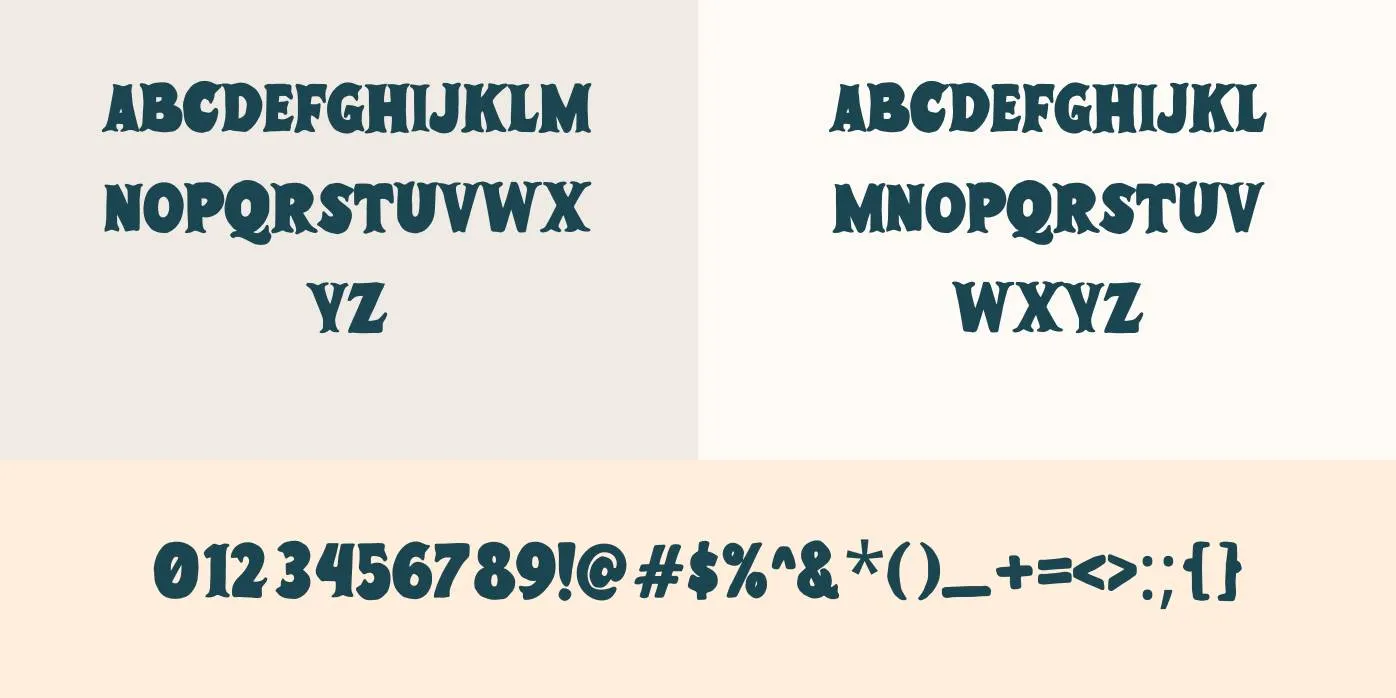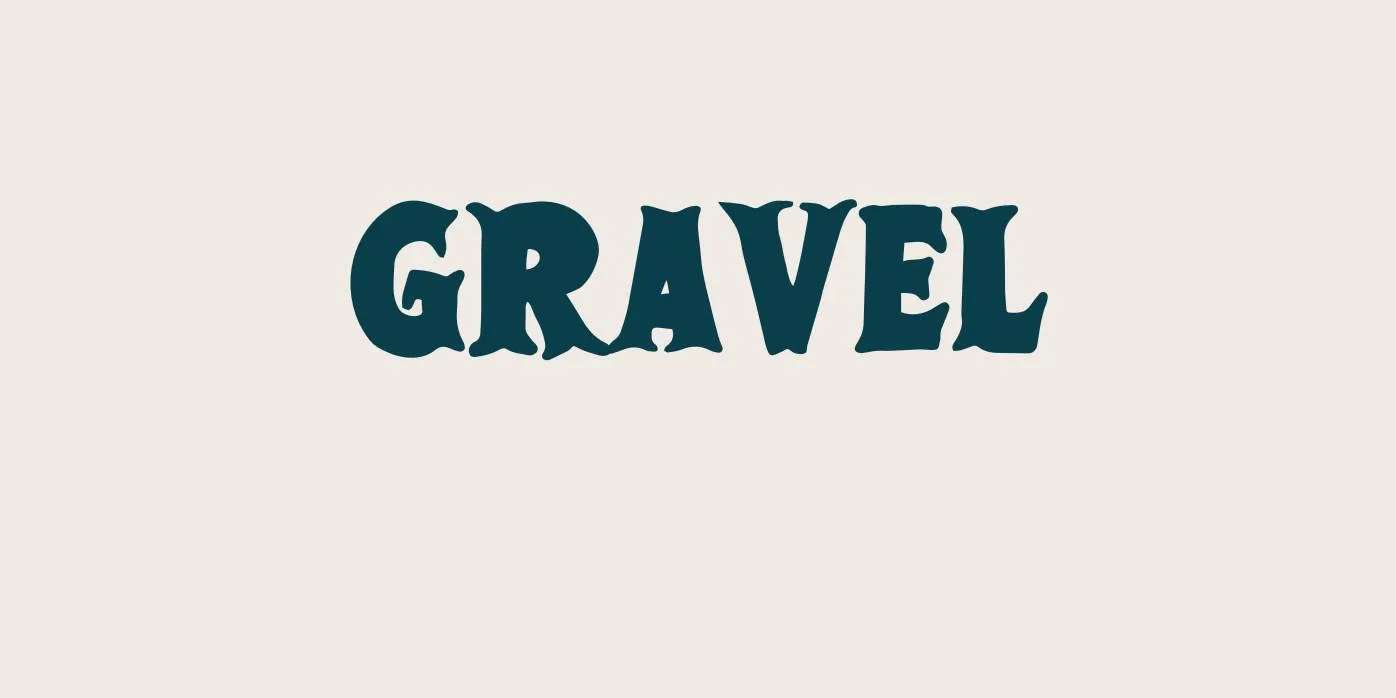
Gravel Font
Gravel Font is a fancy type of font. This typeface is designed by the famous foundry Cumberland Fontworks. This foundry has designed a lot of fonts and is famous for font development. There are 367 stunning glyphs for this typeface.
The characters of this texture are bold, highly readable, and stunning. You can get this typeface from our website free of cost. This typeface is available on this website in OTF and TTF file formats. This texture is free for personal projects and designs.
Because this texture has bold, fantastic, and highly readable characters.